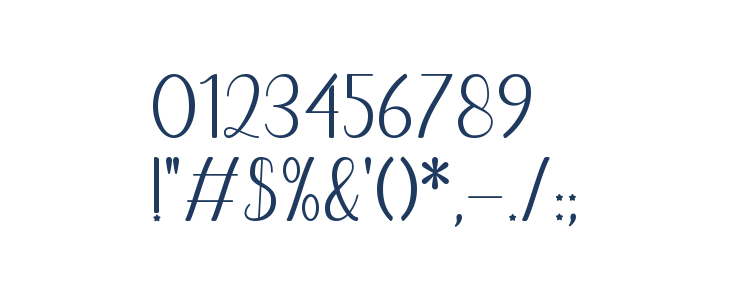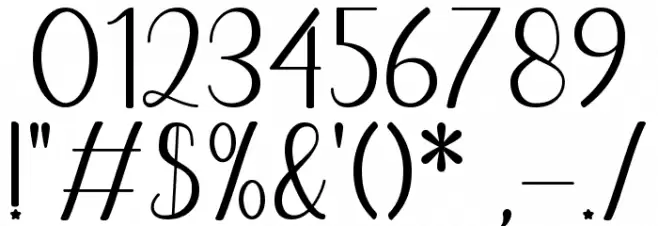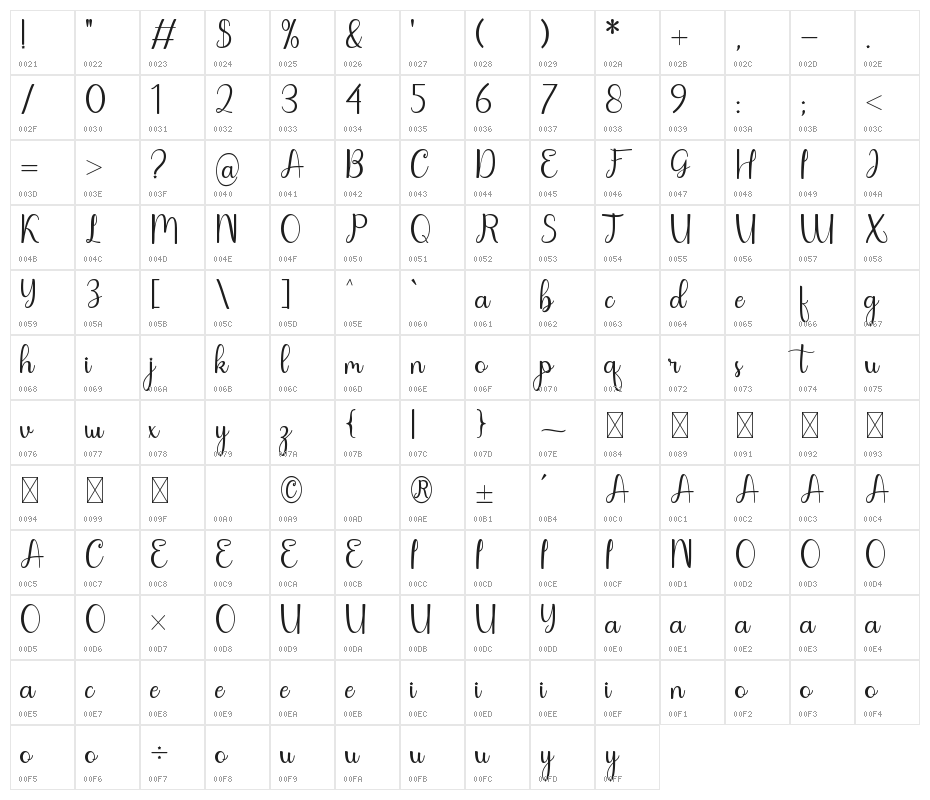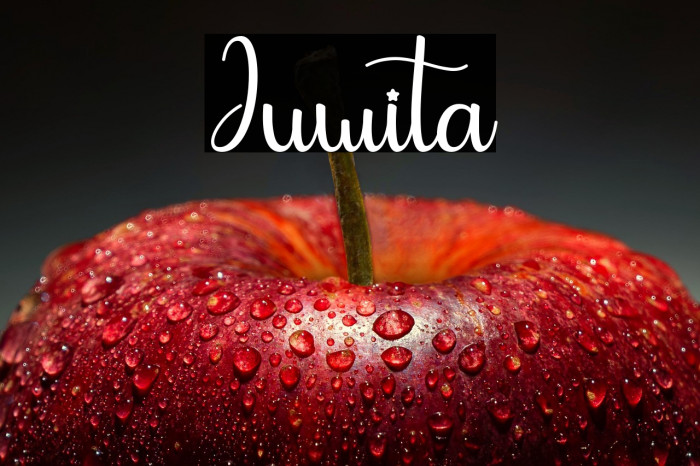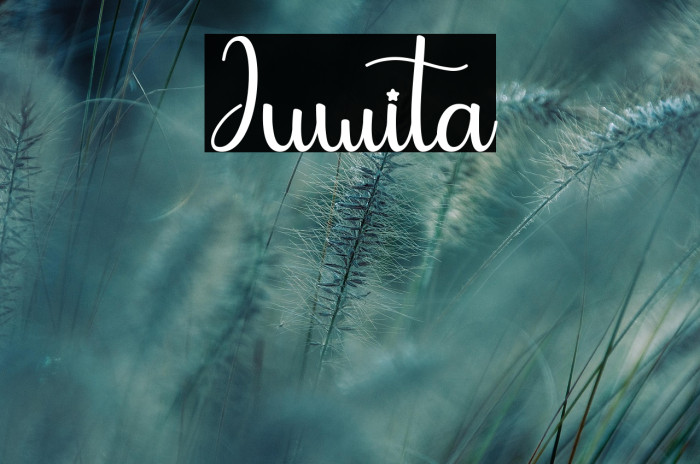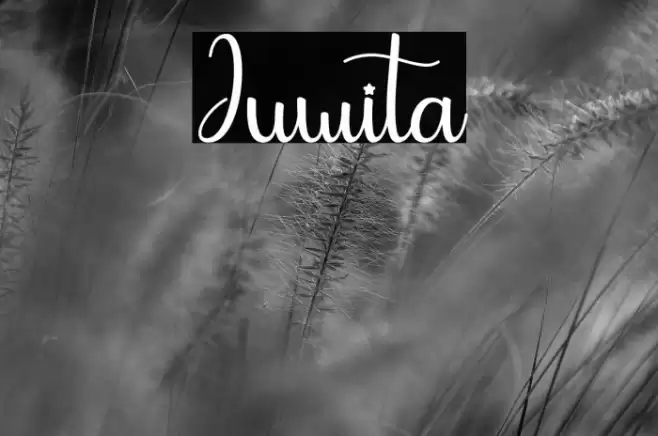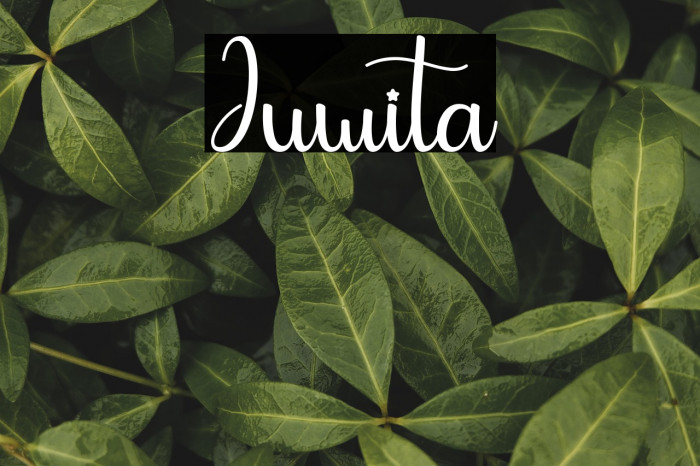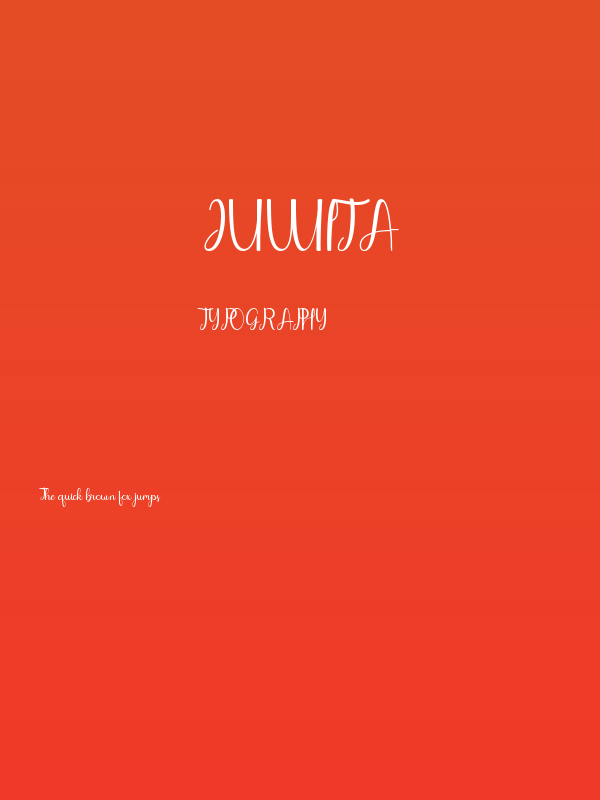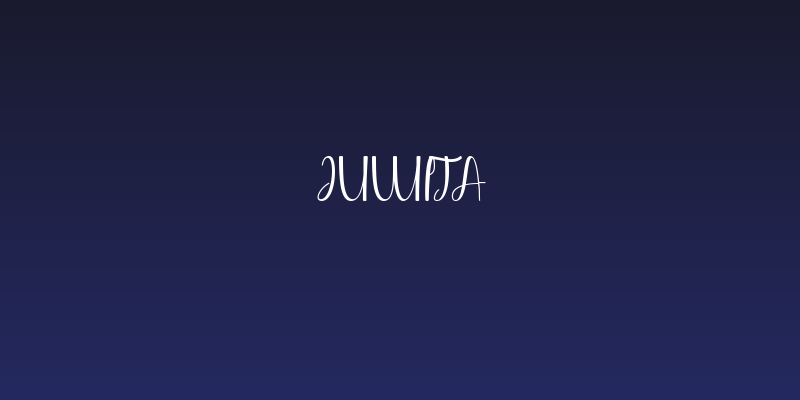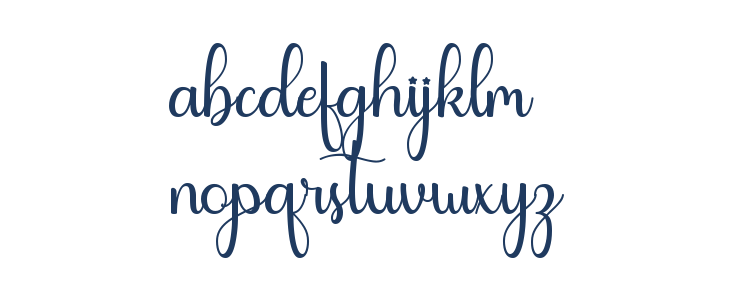
Juwita Font
Juwita Description
This font features a playful and elegant script style with a handwritten feel. The uppercase letters are tall and slender, with a slight slant that adds a dynamic flow. The lowercase letters are more rounded and connected, enhancing the cursive appearance. Numbers are consistent with the overall style, maintaining the same fluidity and elegance. Special characters are creatively designed, complementing the font's whimsical nature. The strokes are smooth and consistent, with medium contrast, making it suitable for various decorative purposes.
| Use Case | Logos, Invitations, Decorative Text |
| Proposed Projects | Ideal for wedding invitations, greeting cards, branding, and decorative posters. |